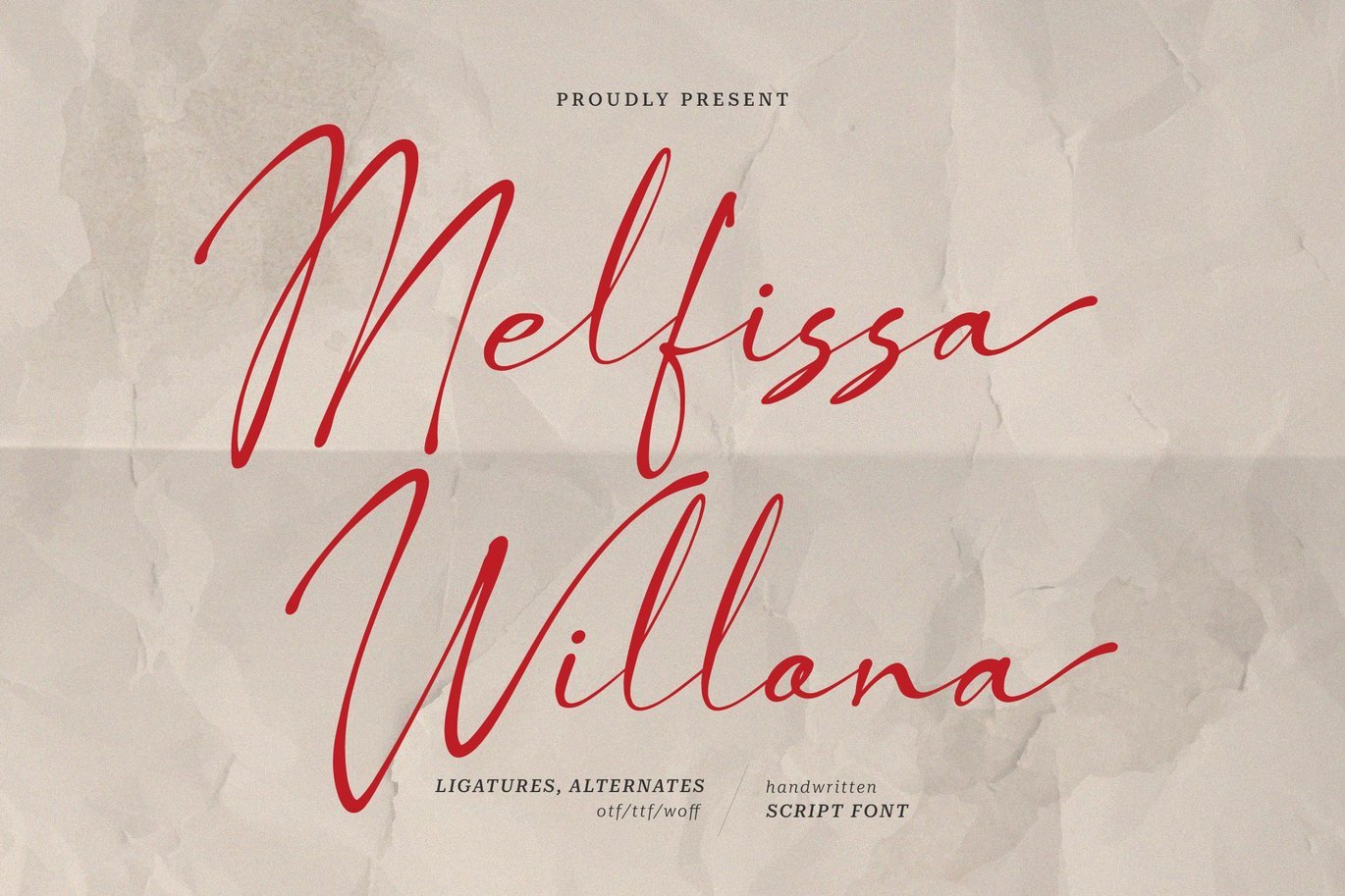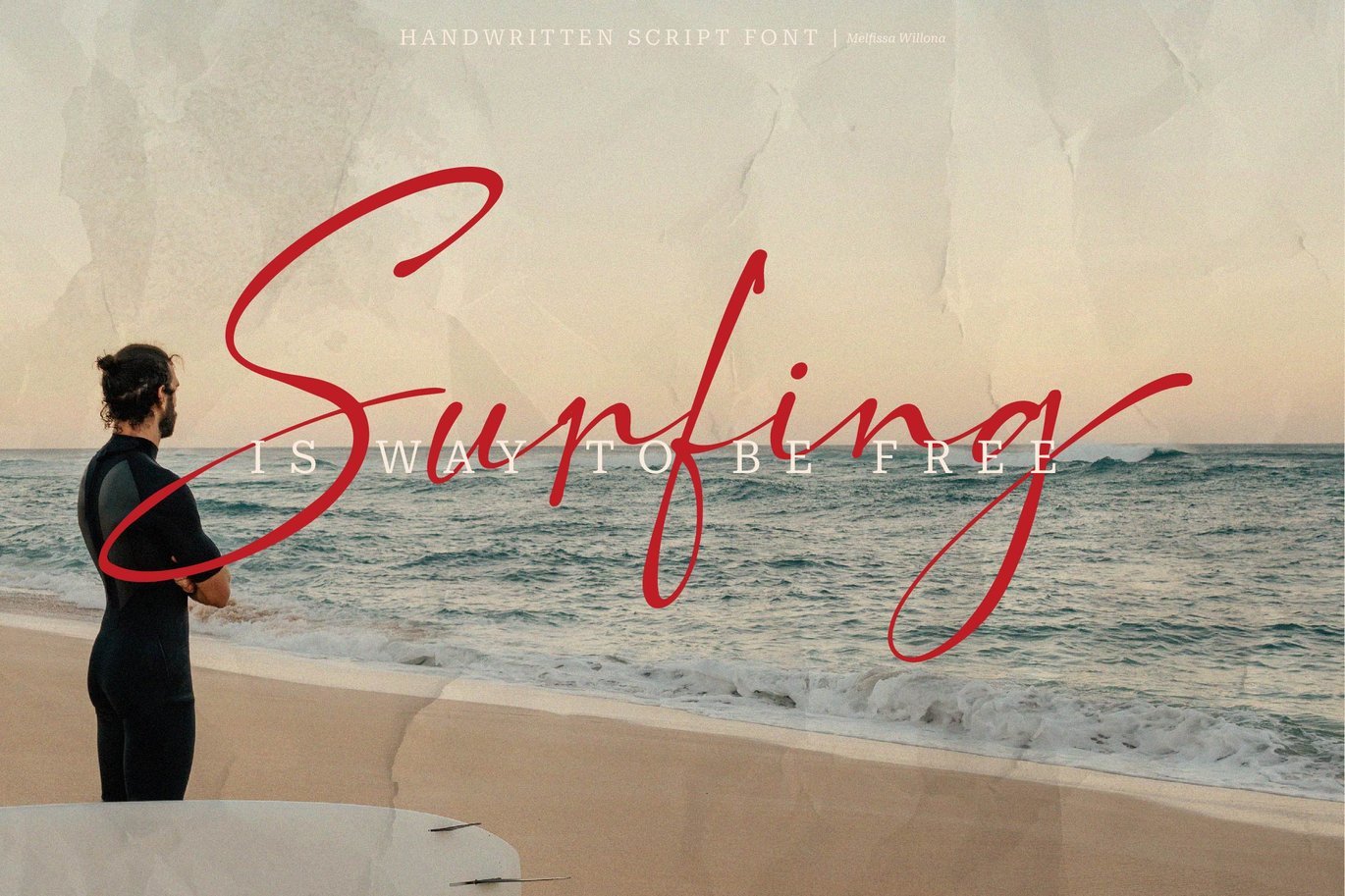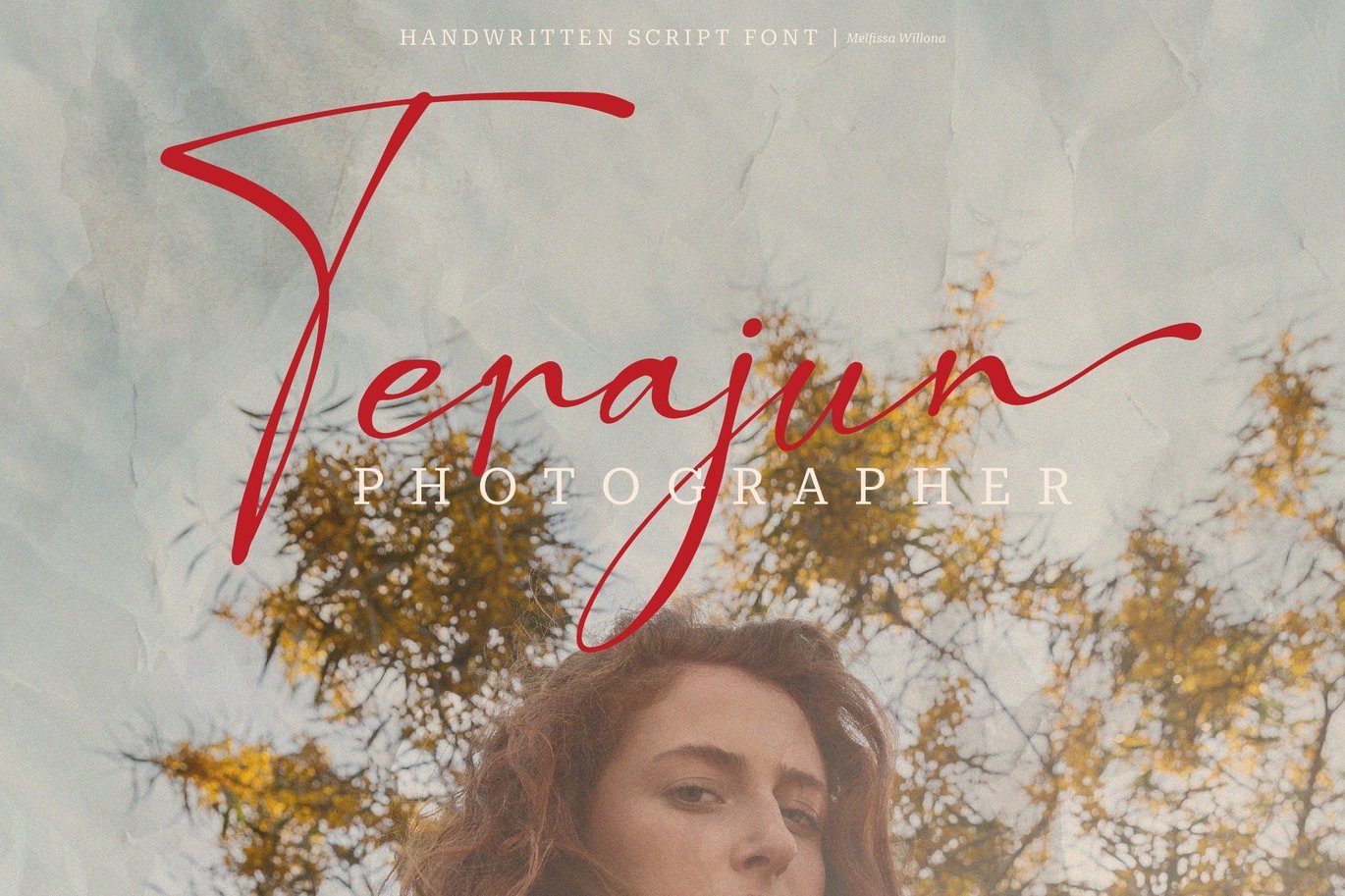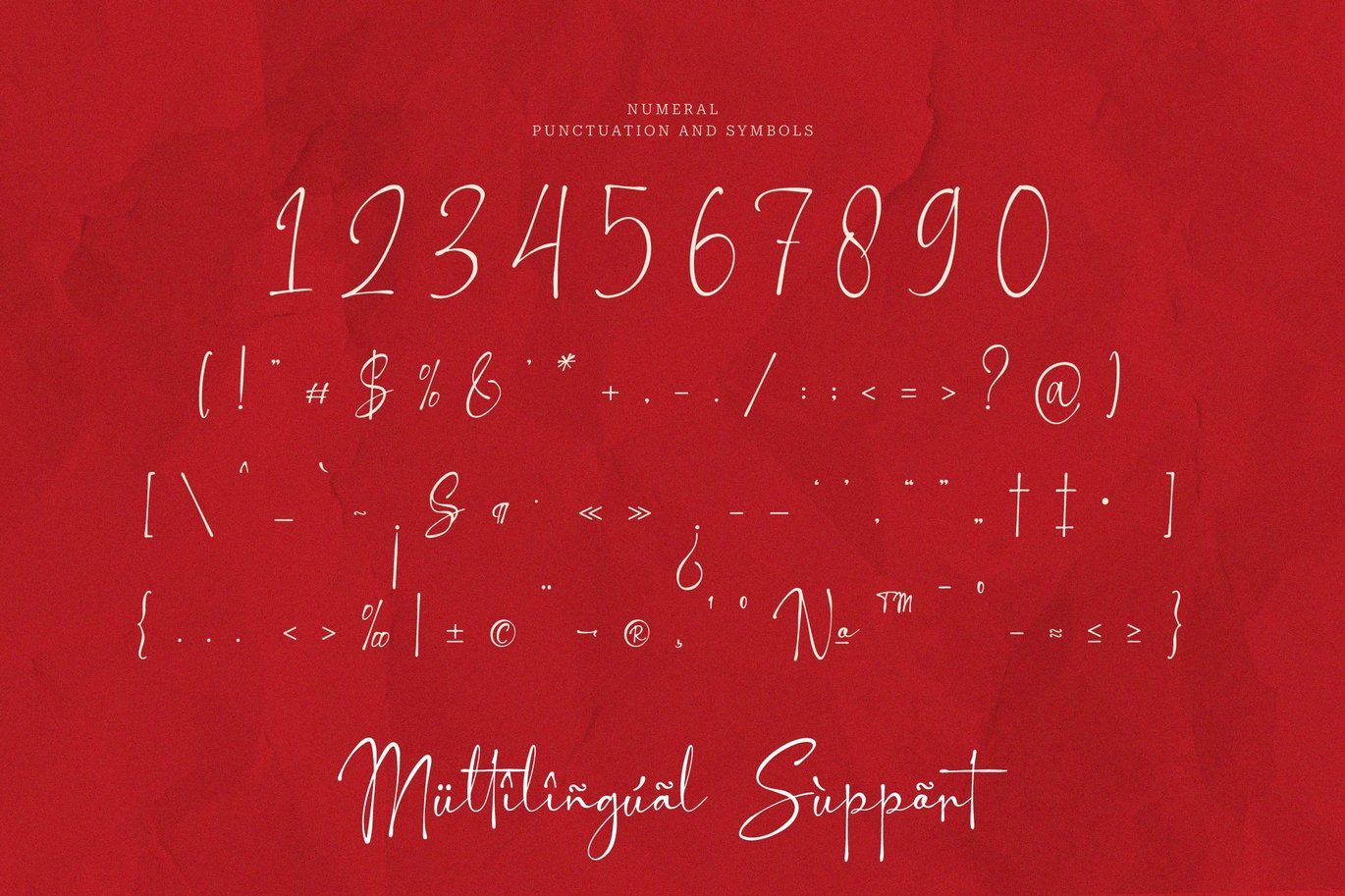
Melfissa Willona | Casual Chic Font
Melfissa Willona is a casual chic script font that blends elegance with a relaxed, modern touch. Each stroke is designed with a smooth, natural flow, creating a warm yet sophisticated handwriting impression. Its flowing characters provide a personal, soft, and expressive feel without compromising legibility.
This font strikes a balance between decorative detail and simplicity, making it appealing in a variety of visual compositions. Its dynamic letterforms with fluid curves make it a perfect choice for conveying a stylish, feminine, and authentic impression.